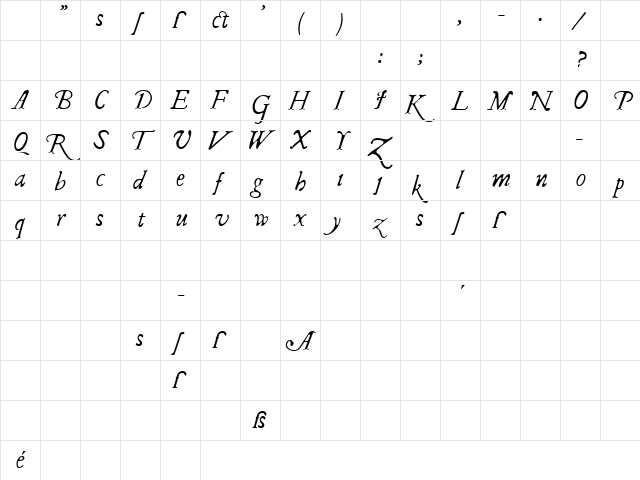
Italic ClassicScript Regular Font Preview
Design Context for Italic ClassicScript Regular Typeface
Italic ClassicScript Regular wears its vintage influences proudly, with letterforms that recall mid-century signage, classic packaging, and nostalgia-driven design. Its italic angle brings a sense of urgency and motion to the letterforms.
Ideal for diner signage, record shop branding, 70s/80s-themed projects, and heritage product labels.
Font Pairing: Combine Italic ClassicScript Regular with a simple slab or neutral sans — period-accurate companions reinforce the vintage feel without competing for attention.
Pro Tip: Lean into Italic ClassicScript Regular's period character by pairing it with aged paper textures, muted colour palettes, and vintage illustration styles.